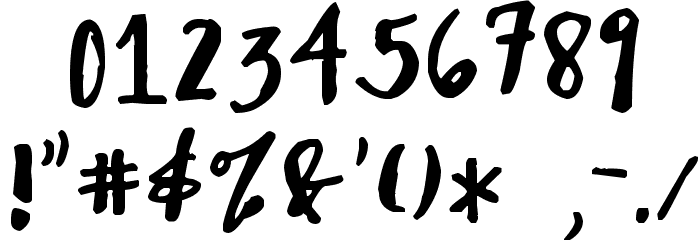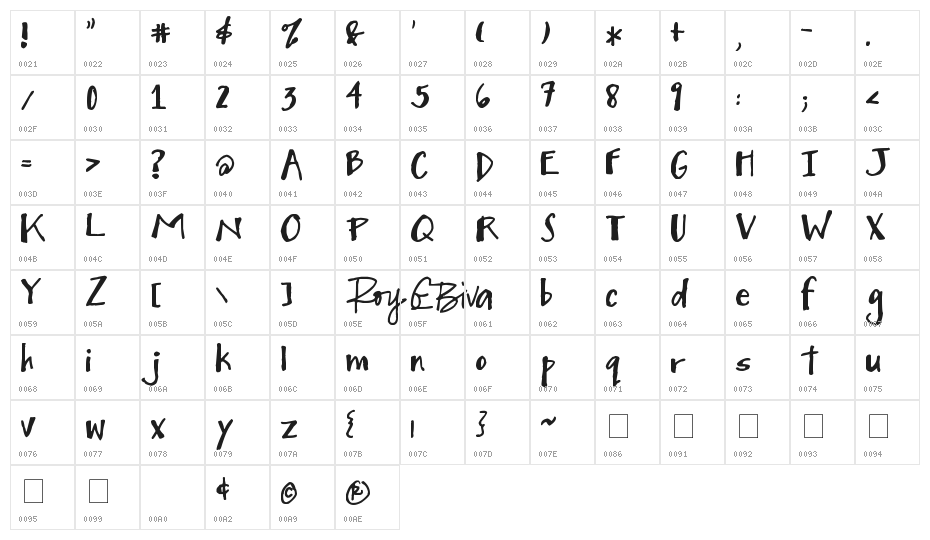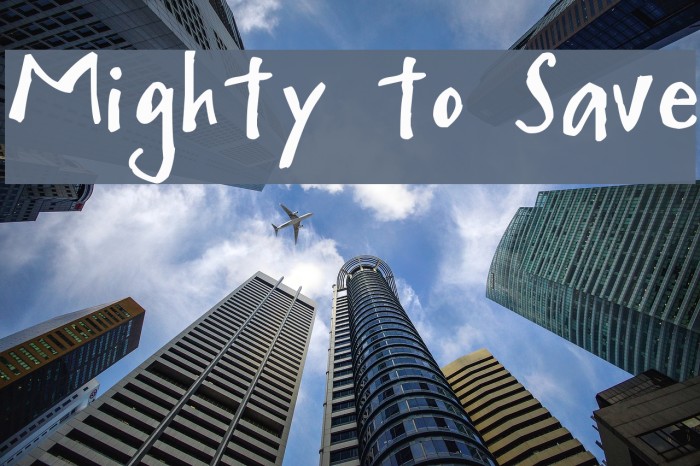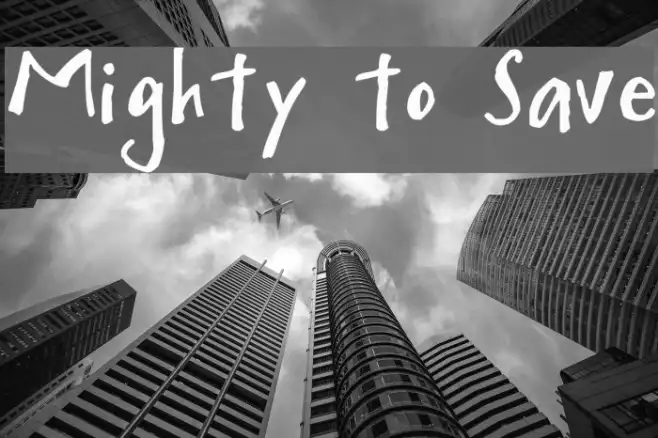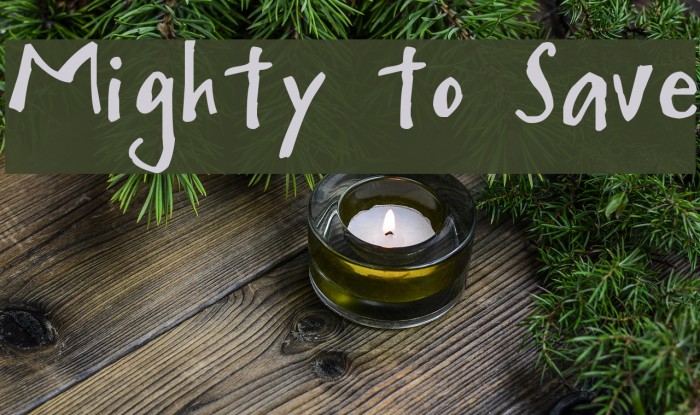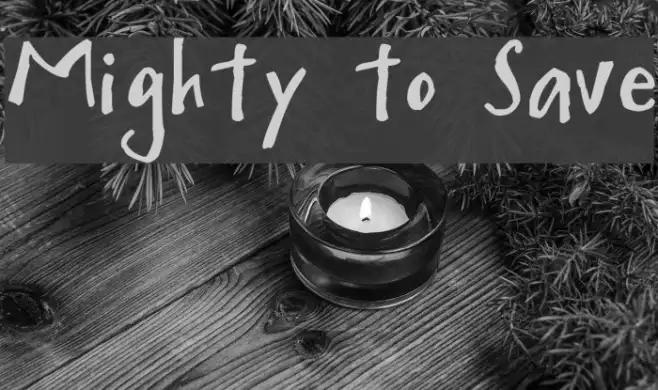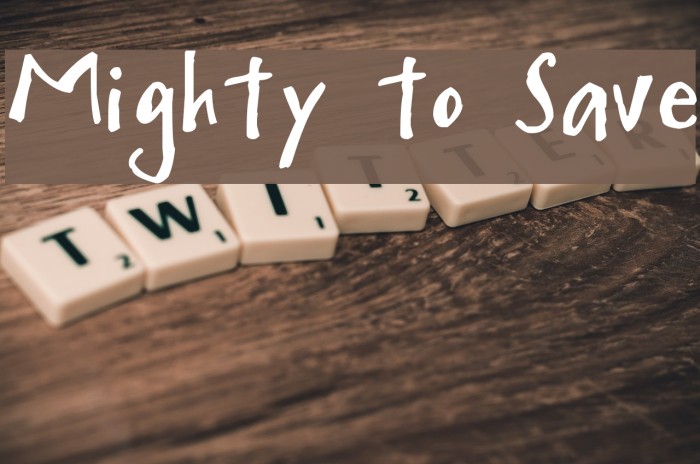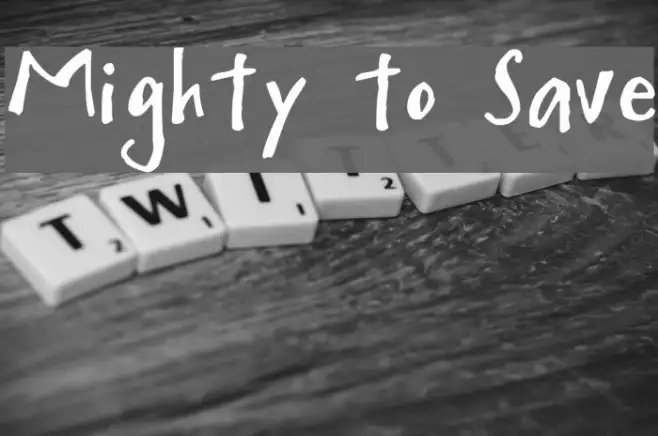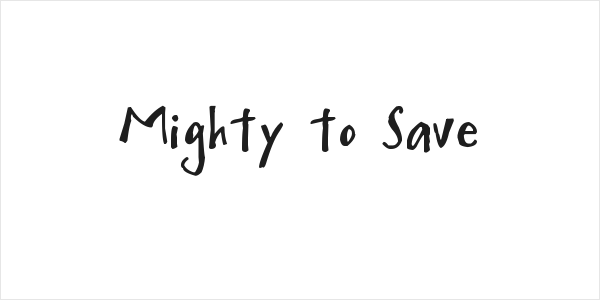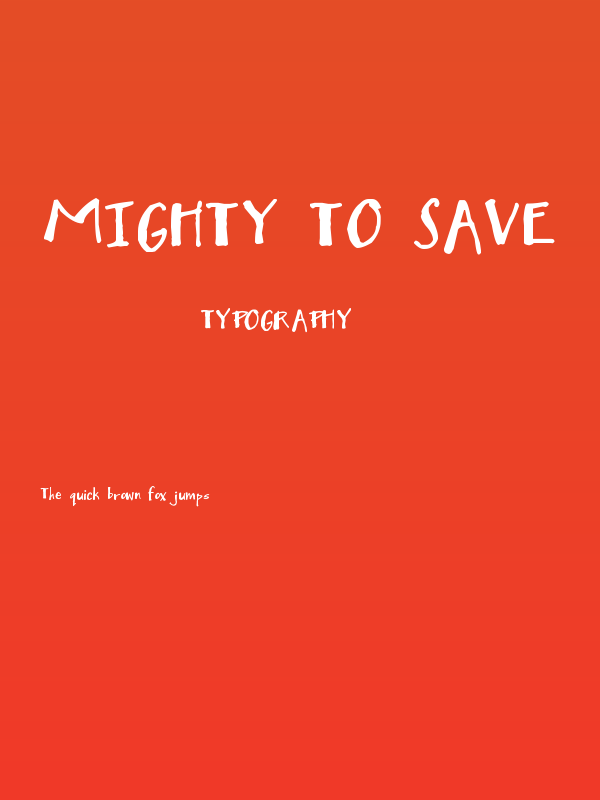
Mighty to Save Font
Mighty to Save Description
This font exudes a playful and energetic vibe, characterized by its hand-drawn, brush-like strokes. The letters are bold and slightly irregular, giving it a casual and informal appearance. The uppercase and lowercase letters maintain a consistent style, with the uppercase being slightly taller and more pronounced. Numbers and special characters follow the same aesthetic, ensuring a cohesive look across all elements. The font's organic and dynamic nature makes it ideal for projects that require a personal touch or a sense of spontaneity.
| Proposed Projects | Perfect for greeting cards, posters, social media graphics, and branding that seeks a casual and lively feel. |